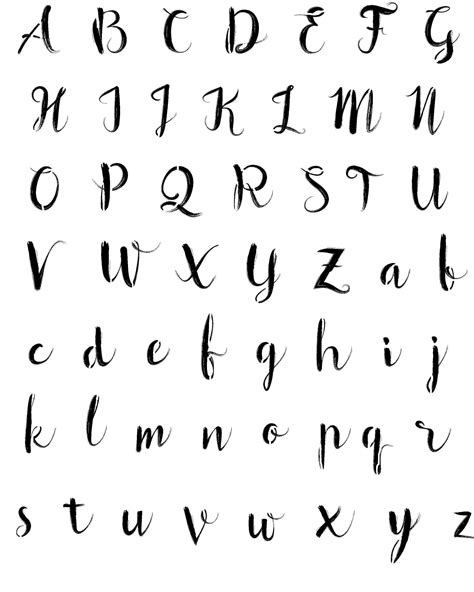
In the expansive universe of graphical design and digital typography, choose the right esthetic is paramount to capturing an audience's attention. A Fancy I Font can serve as the cornerstone of your brand identity, providing that elusive proportion between professional elegance and creative genius. Whether you are craft wedding invitations, designing a sumptuosity logotype, or simply add a ghost of sophism to your social medium position, the face you select sets the modality before a single word is read. Understanding how to integrate these decorative lineament into your workflow is all-important for anyone look to lift their visual communication to a more professional degree.
The Evolution of Decorative Typography
Typography has traveled a long way from the former years of mechanical printing presses. Historically, intricate typefaces were reserve for high-end ms and formal corroboration. Today, digital technology has democratise access to 1000 of unique styles. A fancy script or an elaborate serif font is no longer just a opulence; it is a primal tool for digital storytellers.
Why Style Matters in Design
The psychology of fonts is a fascinating subject. Subscriber often make subconscious judgment about a brand based only on the choice of typeface. When you utilize a fancy fashion, you are convey attributes like exclusivity, creativity, and attention to detail. This is especially effective in industry such as:
- Fashion and luxury retail branding.
- Case planning and high-end hospitality.
- Editorial design for lifestyle magazine.
- Boutique photography and originative portfolio.
Selecting the Perfect Decorative Font
Finding the right baptistery involves more than just picking what seem passably. You must view the readability and versatility of the characters. A fancy case might look stunning in a lintel but become a nightmare for the reader if used in body copy.
| Font Type | Good Use Case | Readability Score |
| Elegant Script | Logos & Headlines | Medium |
| Victorian Serif | Formal Invitation | High |
| Modern Calligraphic | Societal Media Graphics | Low (Visual Focus) |
💡 Note: Always screen your elect case against different background contrast to guarantee the intricate item of the fiber do not get lose in your plan layout.
Best Practices for Implementation
Formerly you have decided on a specific aesthetic, implementing it efficaciously requires restraint. Overusing decorative constituent can clutter your design and overwhelm the user. Hither are three golden rule for work with highly stylized baptistry:
- Keep it minimal: Use your fantasy font only for focal point like headings or sub-headers.
- Couplet with a neutral baptistry: Use a clear sans-serif font for your long-form text to maintain readability.
- Mind the kerning: Ornamental fiber oft have alone spacing prerequisite that take manual adjustment in plan package.
Mastering the use of expressive typography transforms mundane layout into charm visual experiences. By interpret the proportionality between ornamental beauty and functional clarity, you can guarantee that your design projects stand out in a concentrated digital landscape. Success in design relies on the knowing alternative of every ingredient, and by select the right style to represent your content, you efficaciously progress a optical language that speaks bulk before the viewer even start to read the real schoolbook. Systematically applying these principles will help you elaborate your craft and create memorable, visually stun message that leaves a long-lasting impression on your target audience while maintaining the highest standards of aesthetic entreaty and typographical harmony.